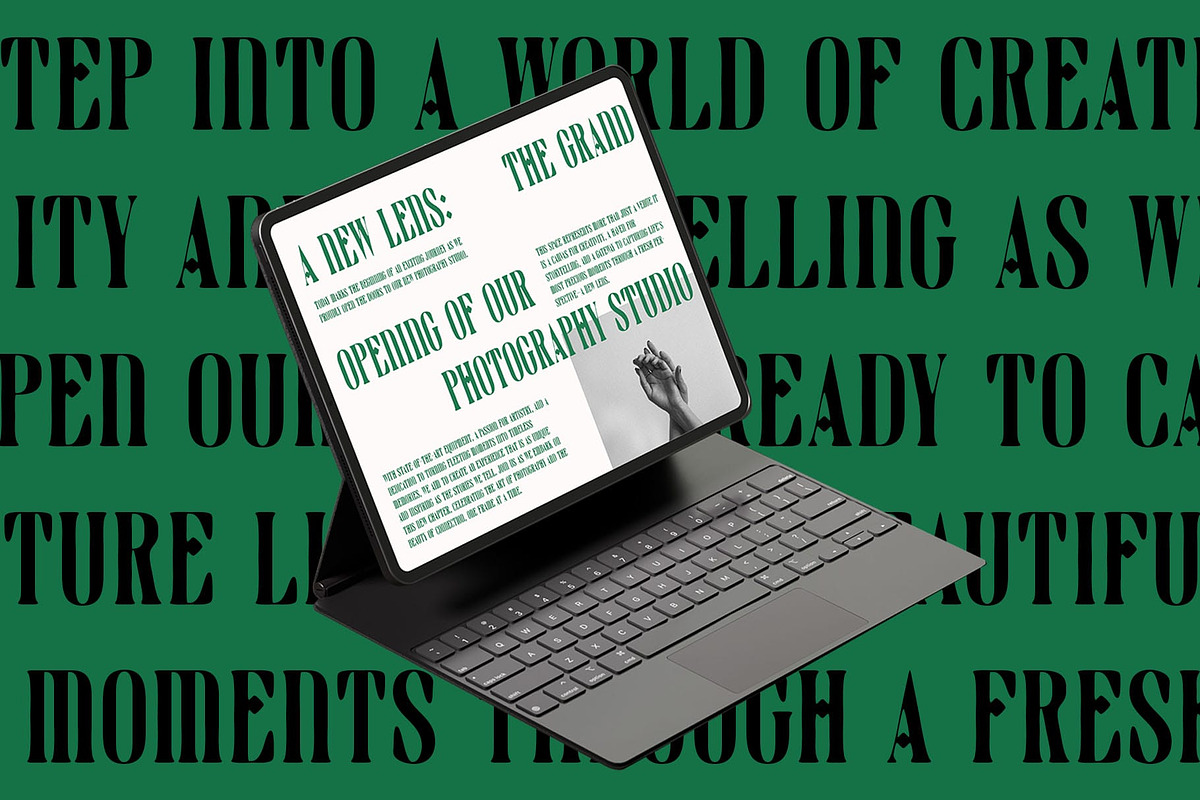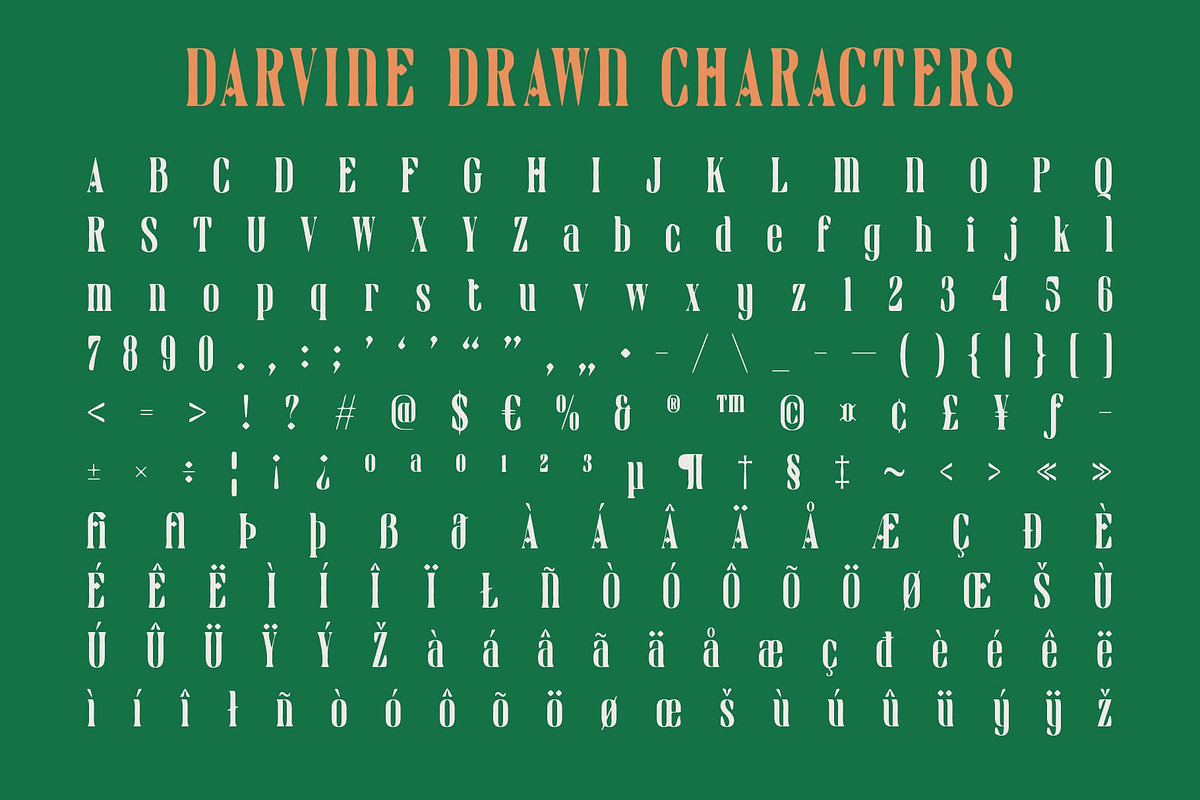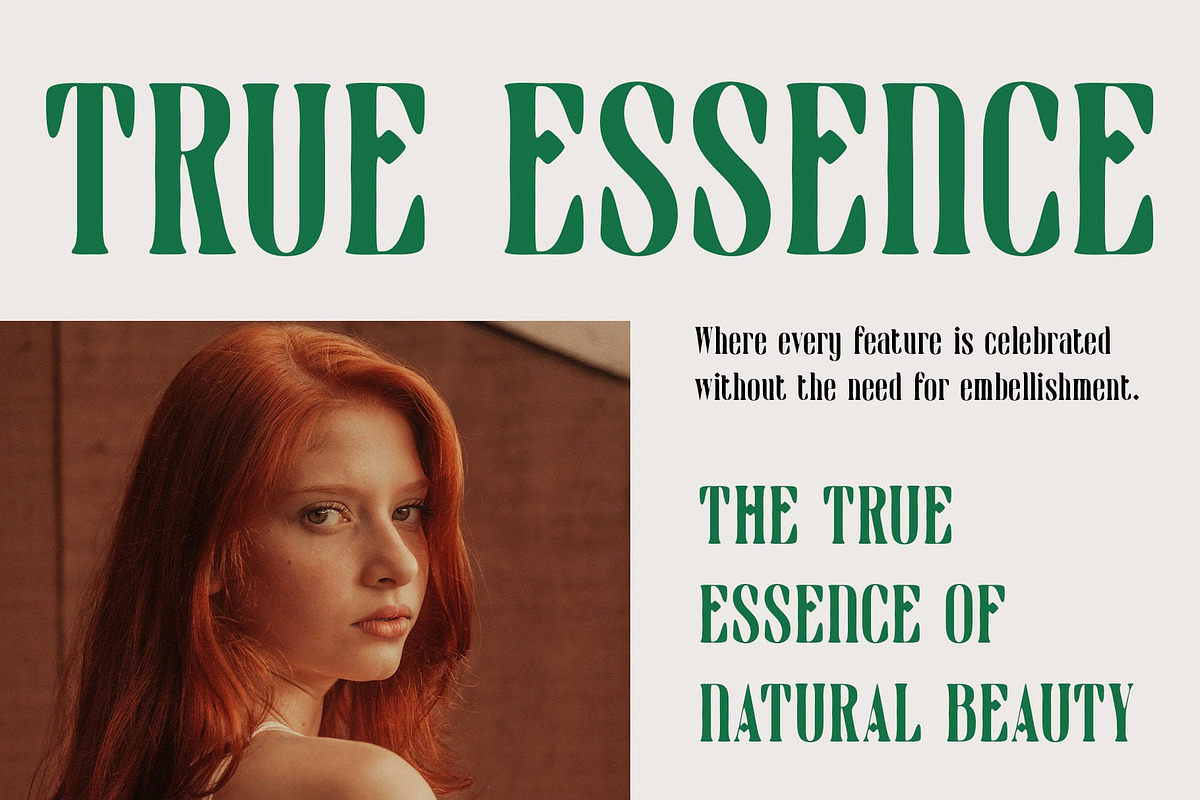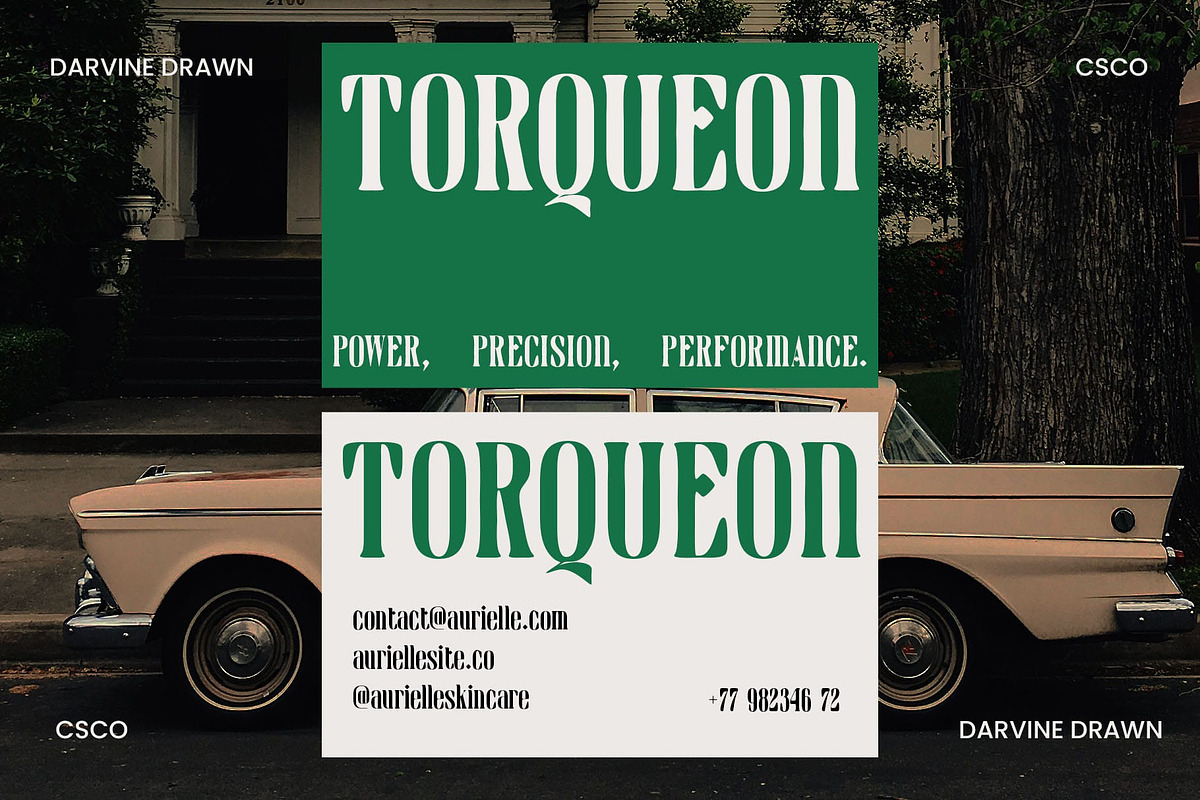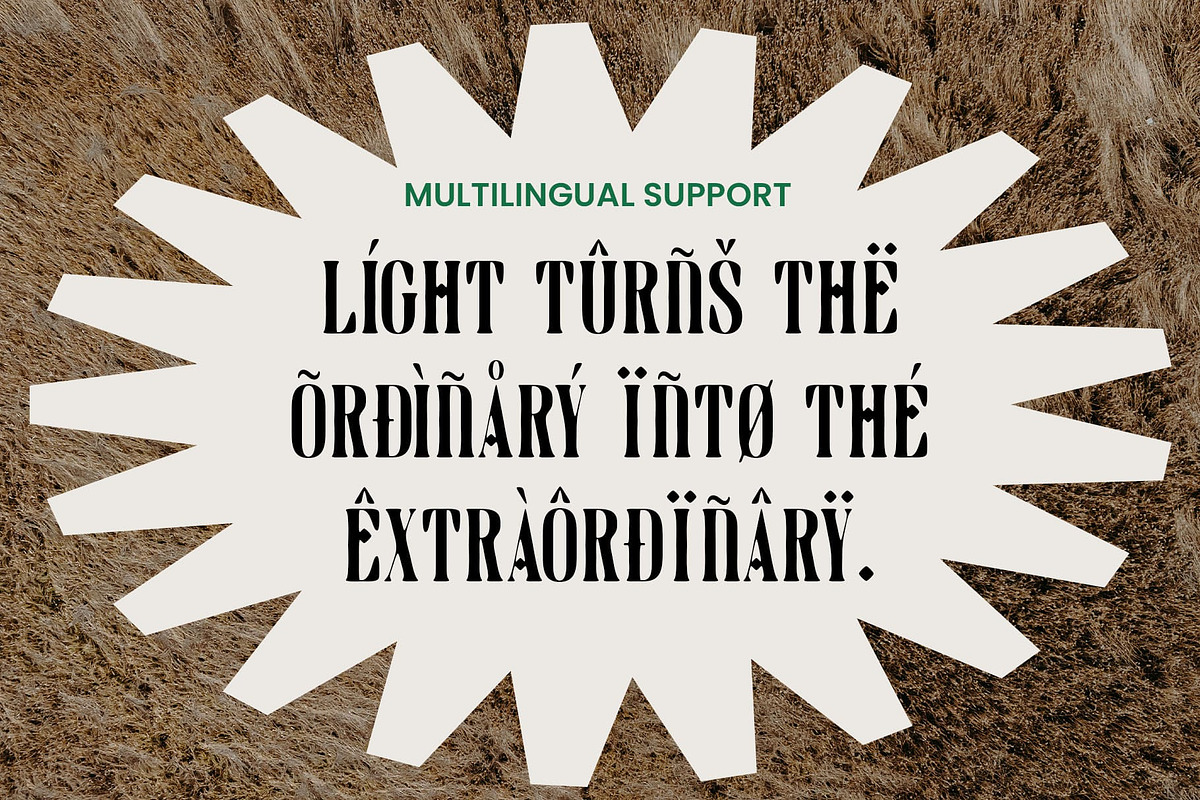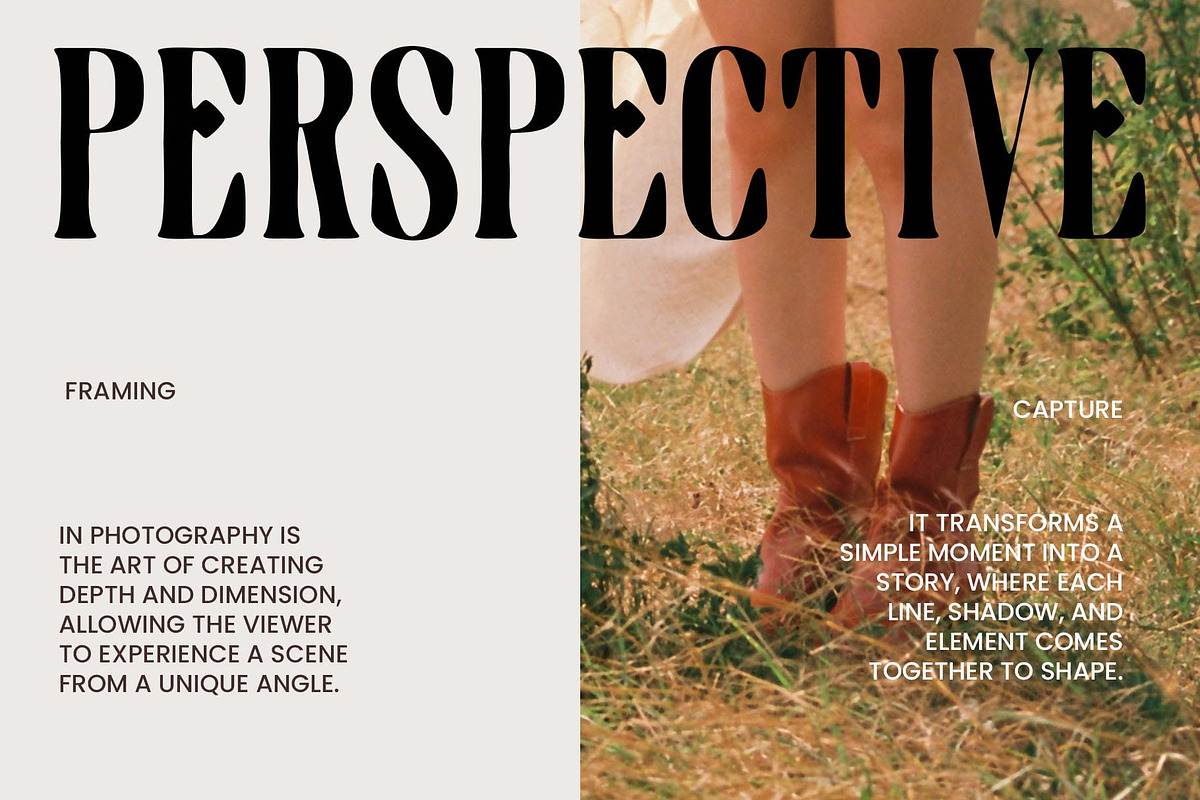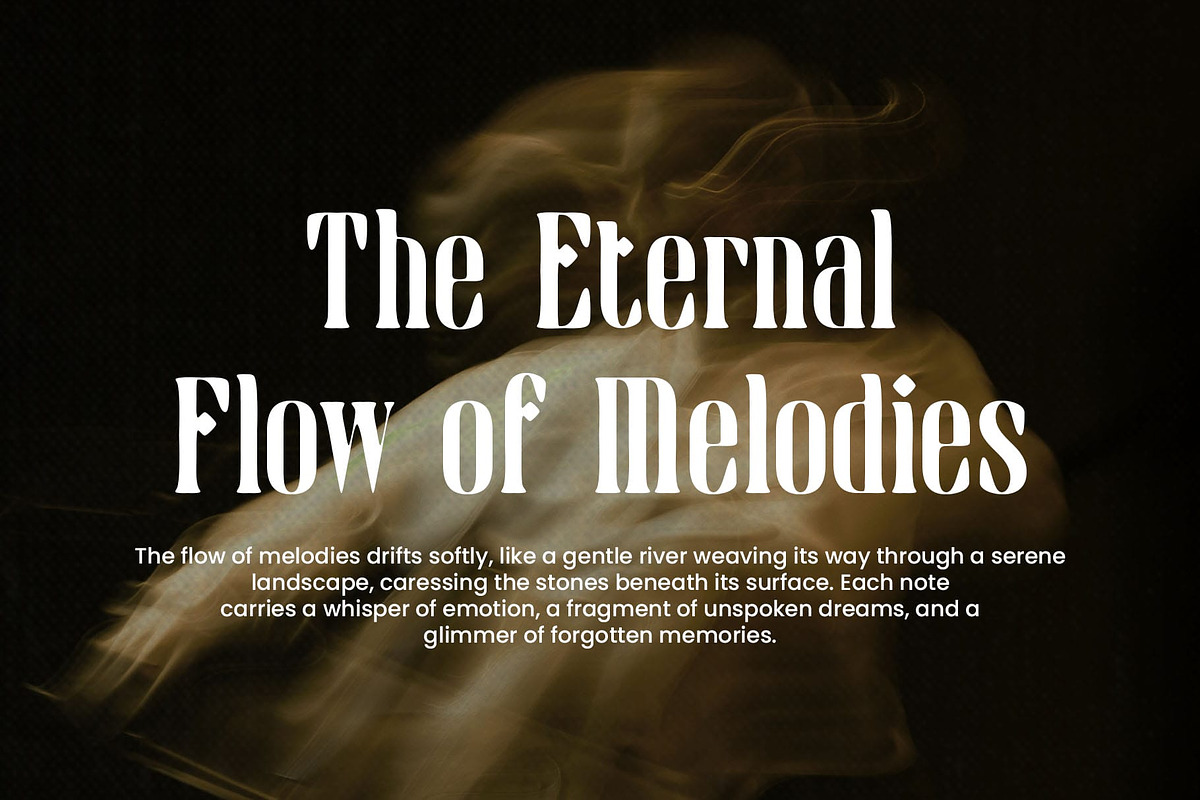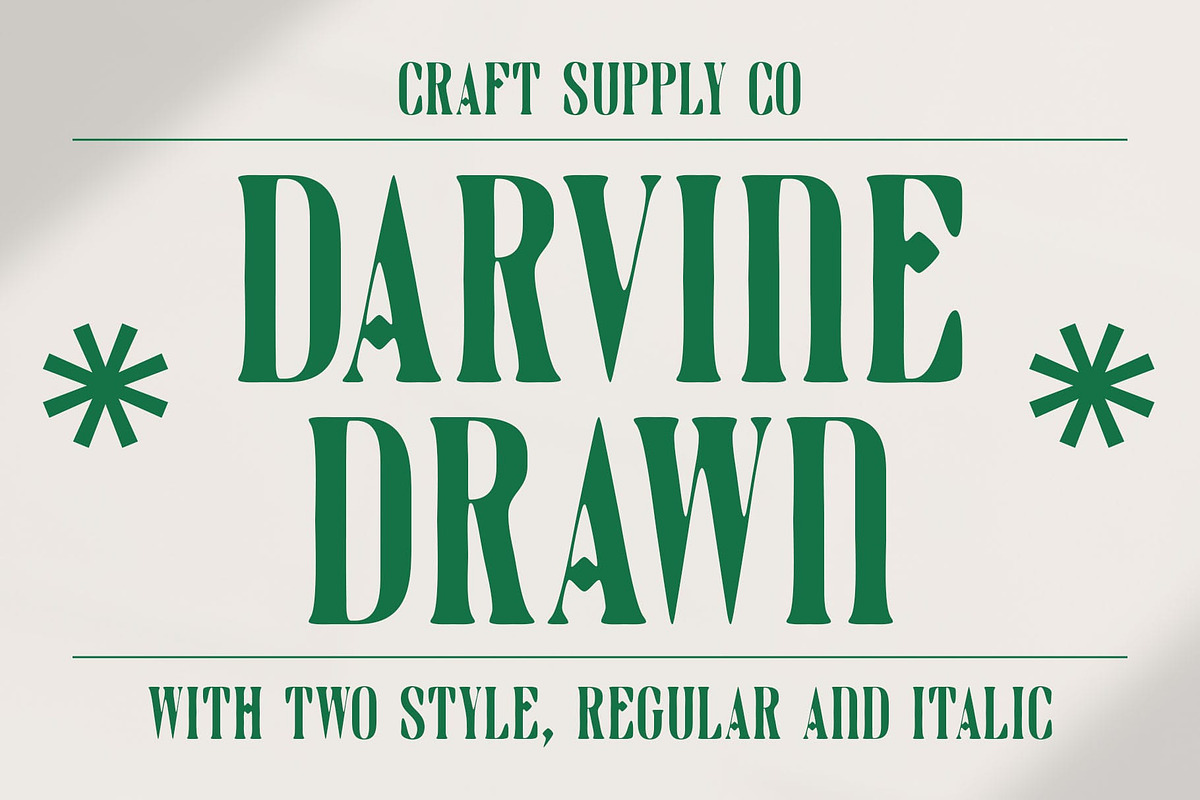
Darvine Drawn
Darvine Drawn – Refined Serif Font with Artistic Character
Sleek, Condensed Design with Handcrafted Detail Darvine Drawn is a modern serif font that features a condensed form, blending sharp, sleek lines with a distinctive hand-drawn effect. The condensed structure offers an efficient, space-saving design, while the hand-drawn detailing adds an artistic, personal touch that enhances its overall character.
A Perfect Balance of Elegance and Creativity This typeface strikes the ideal balance between refinement and creativity. The clean, narrow letterforms convey sophistication, while the handcrafted details infuse each character with a unique, expressive flair. It’s a perfect choice for projects that demand a combination of modern style and artistic individuality.
Versatile for Branding, Posters, and Editorial Designs Darvine Drawn excels in various applications, including branding, posters, and editorial designs. Whether you’re looking to add a touch of elegance to your logo, create eye-catching headlines, or elevate your editorial layouts, this font offers both readability and style in equal measure.
A Creative, Yet Polished Impression With its condensed form and hand-drawn details, Darvine Drawn is ideal for designs that require both a refined, professional feel and an artistic, personal touch. Its versatility makes it a standout choice for projects that aim to impress with creativity while maintaining a polished and sophisticated look.